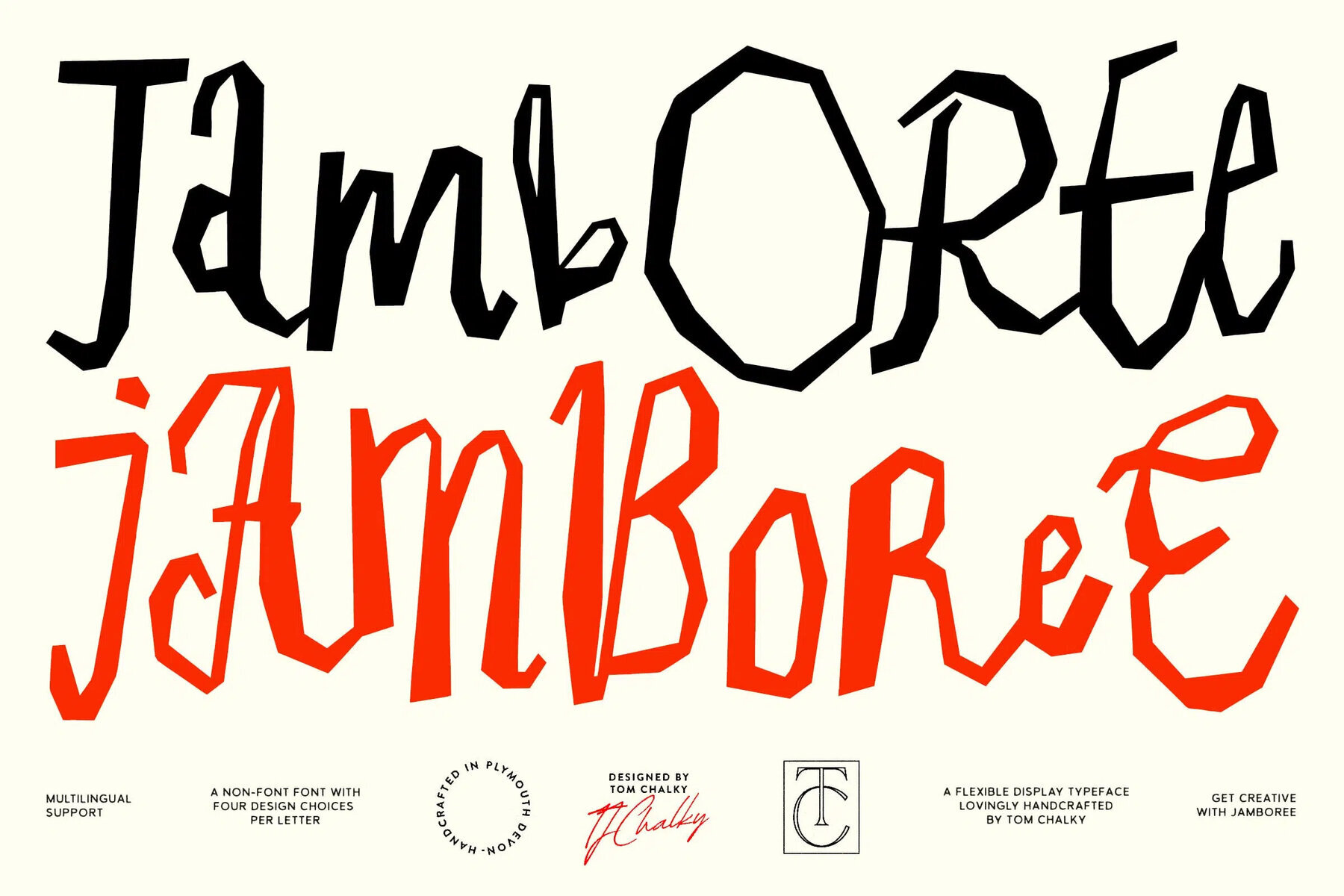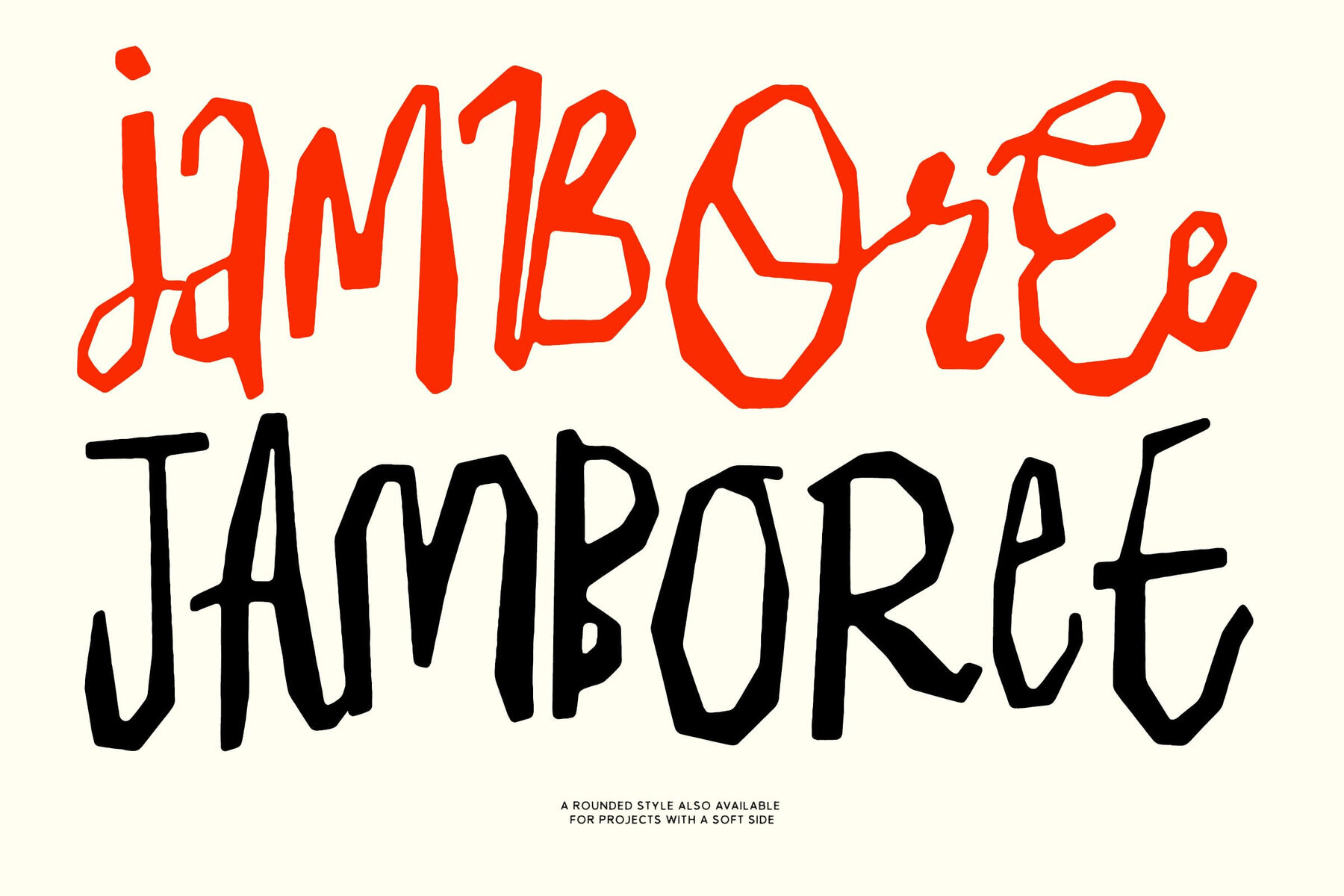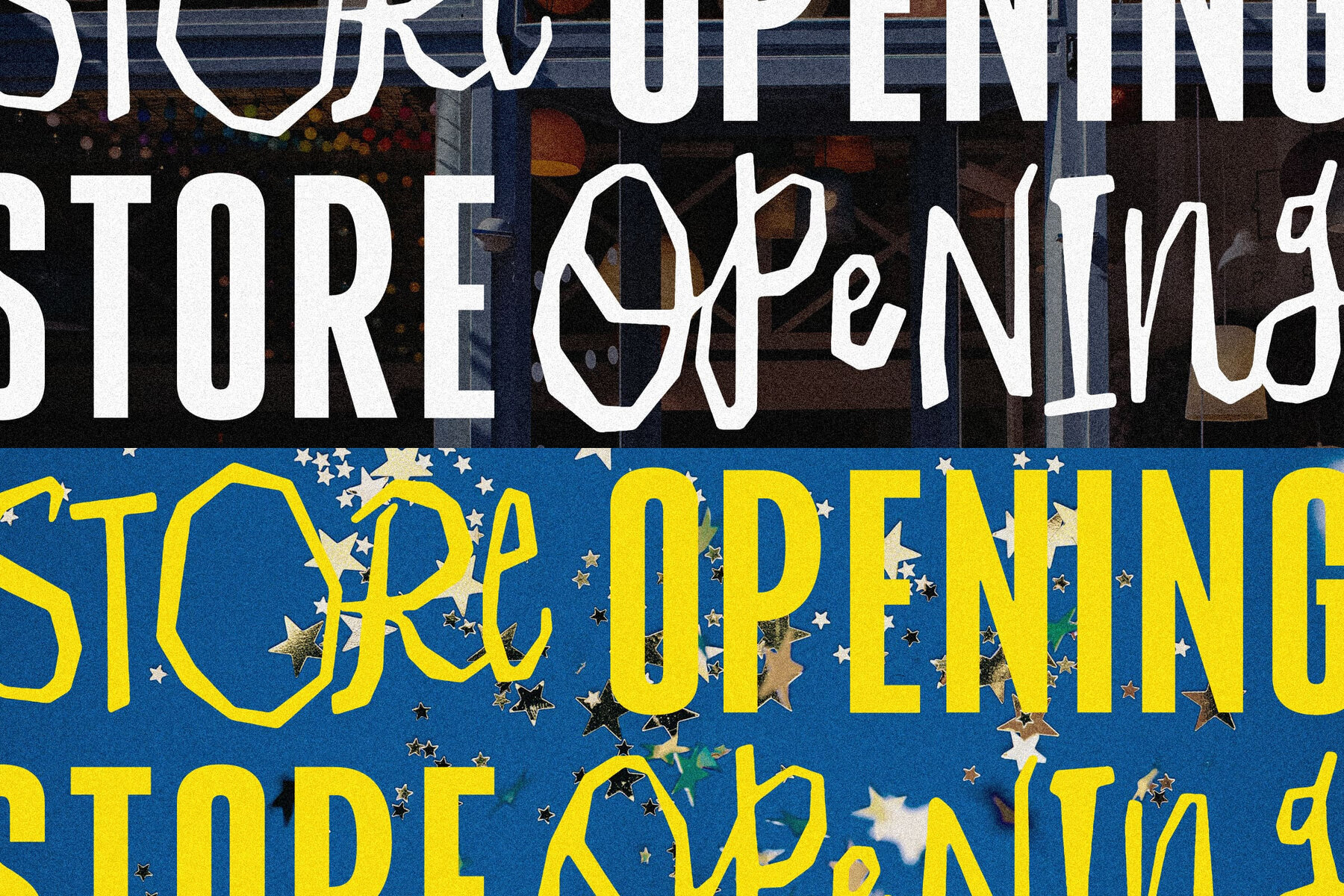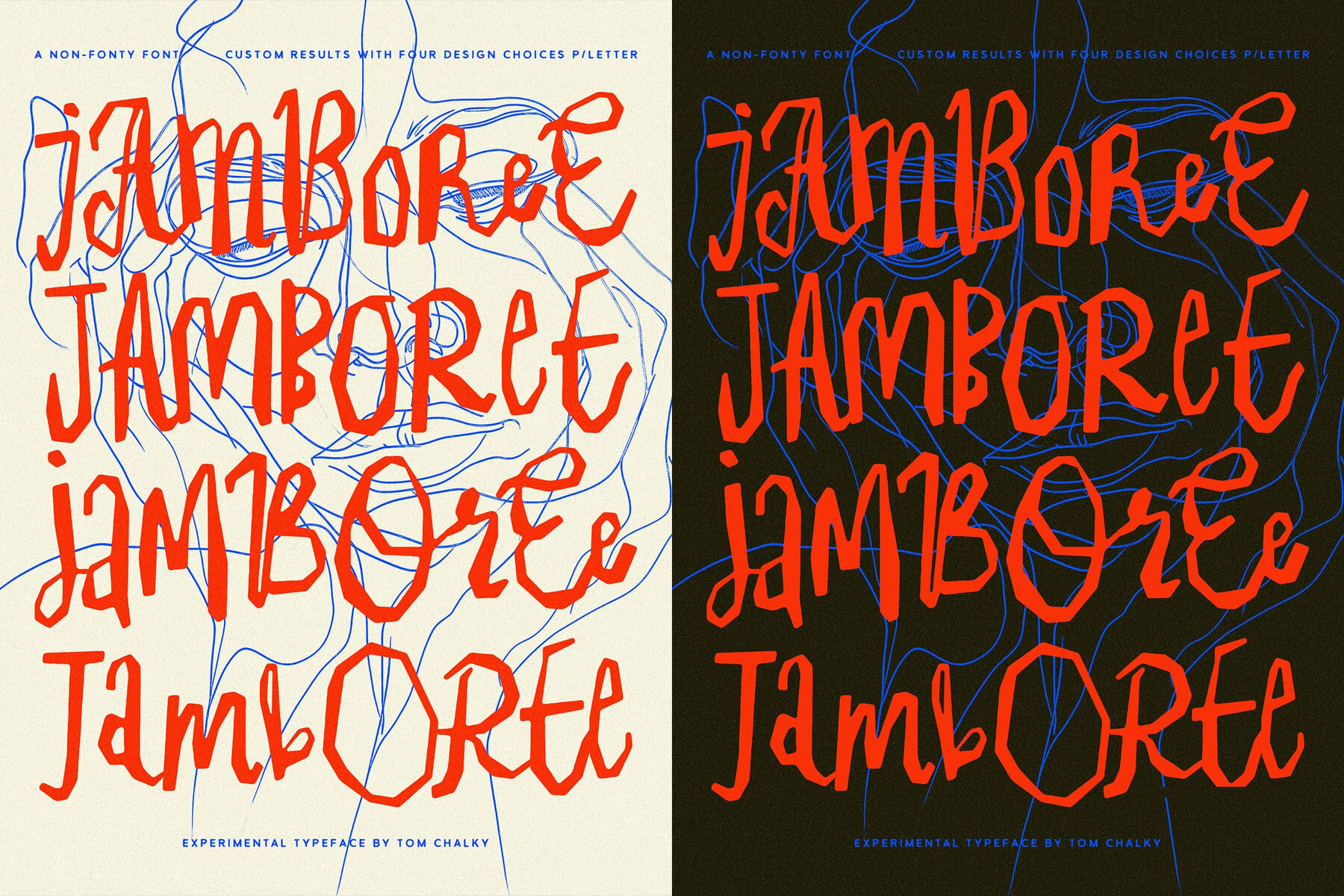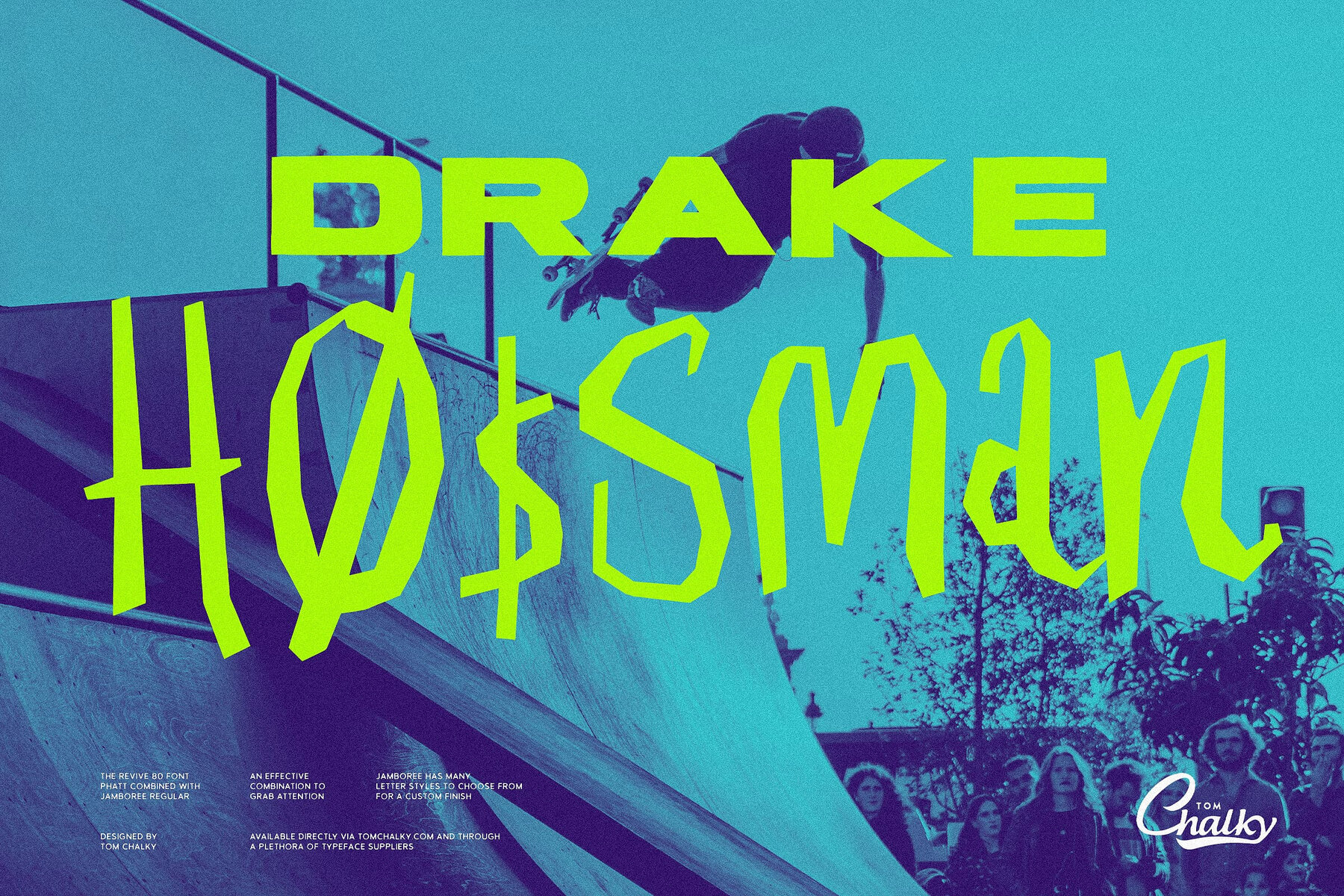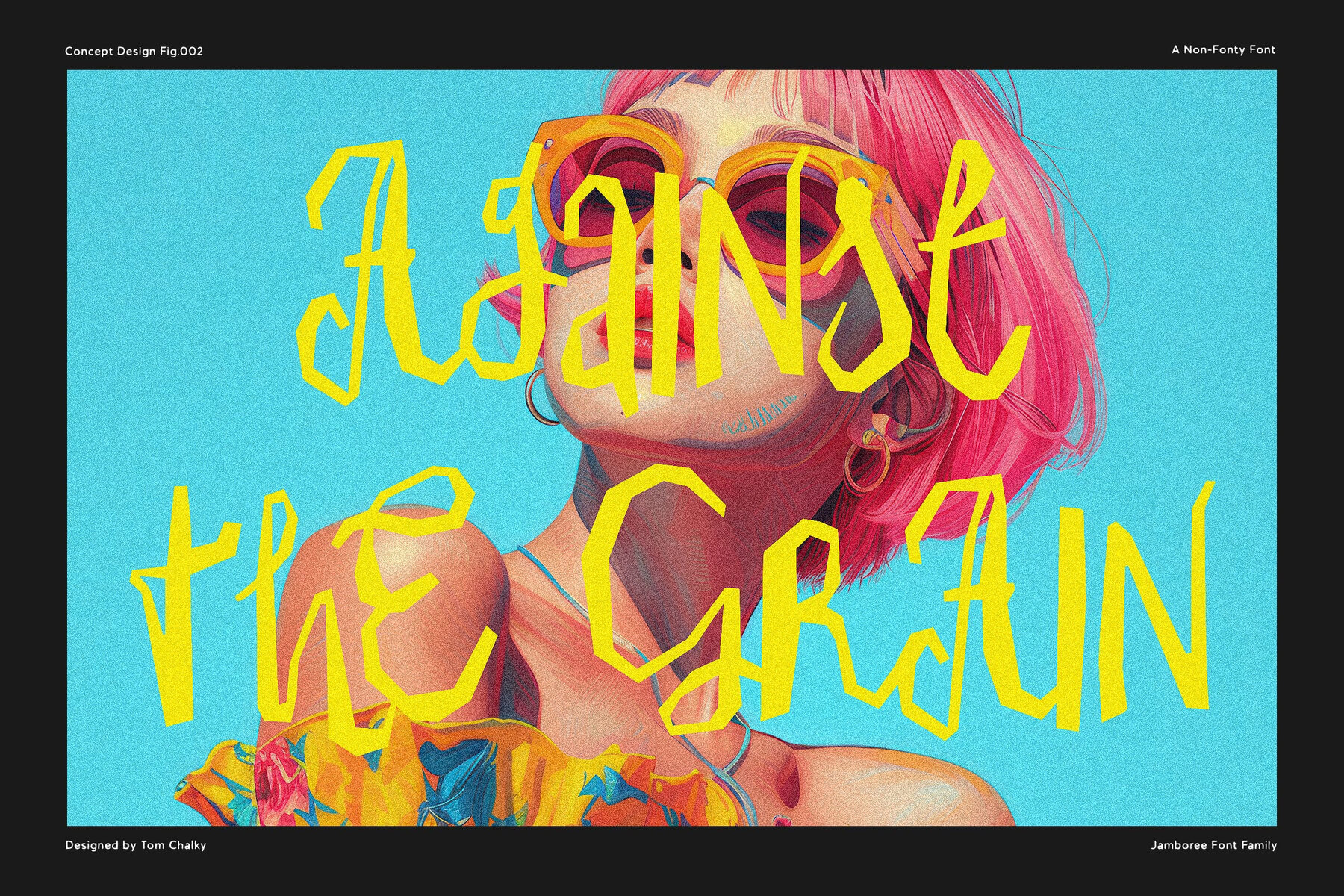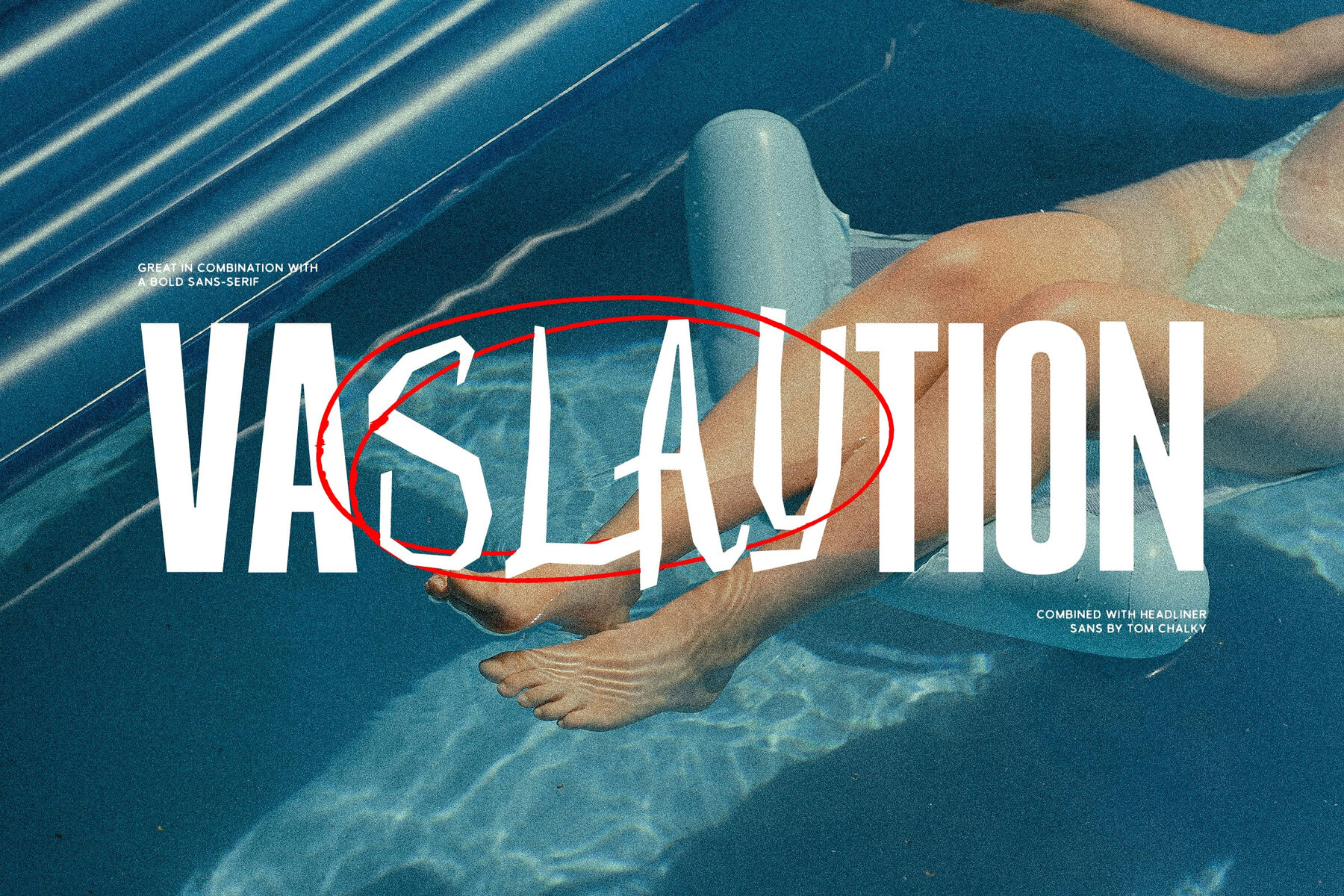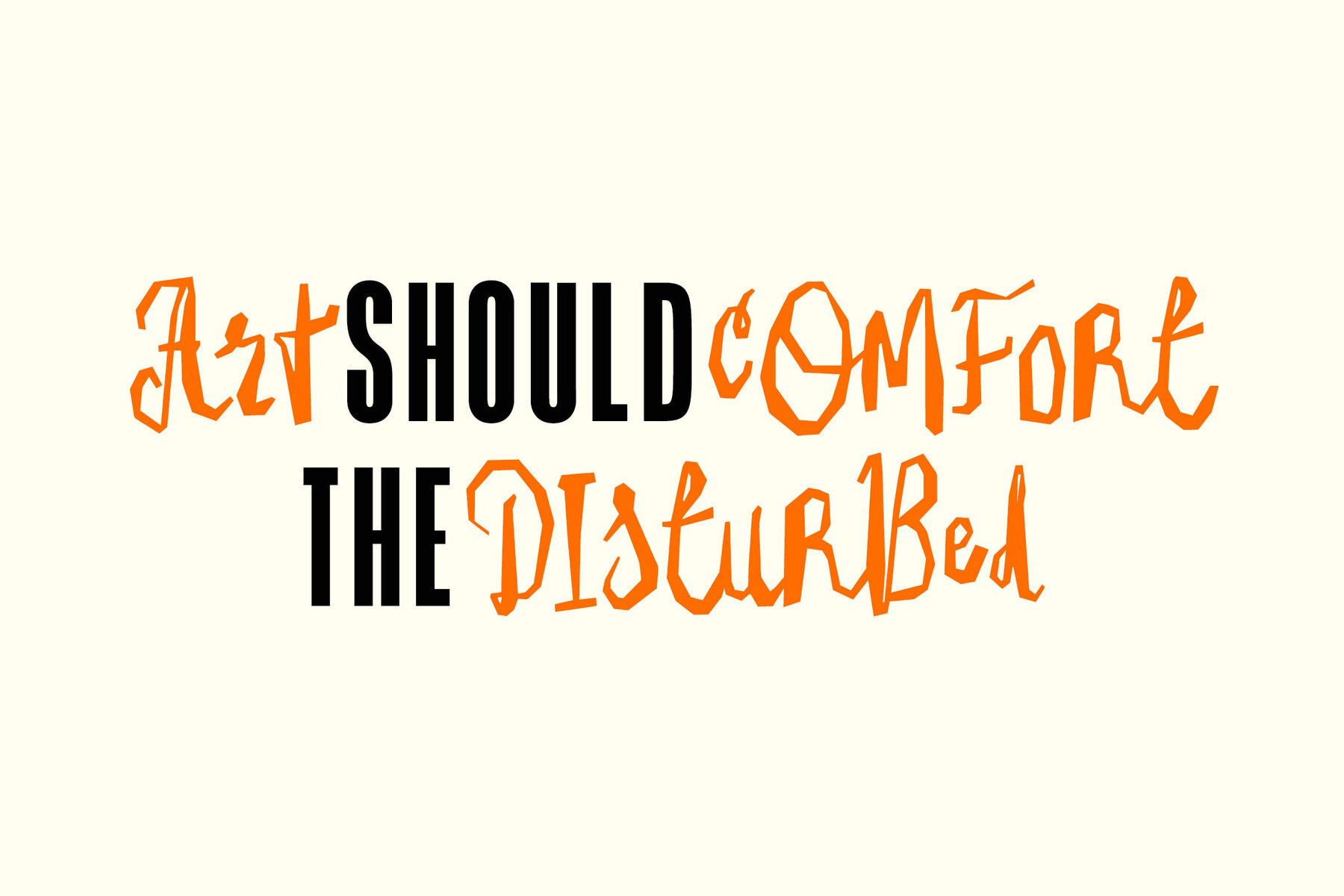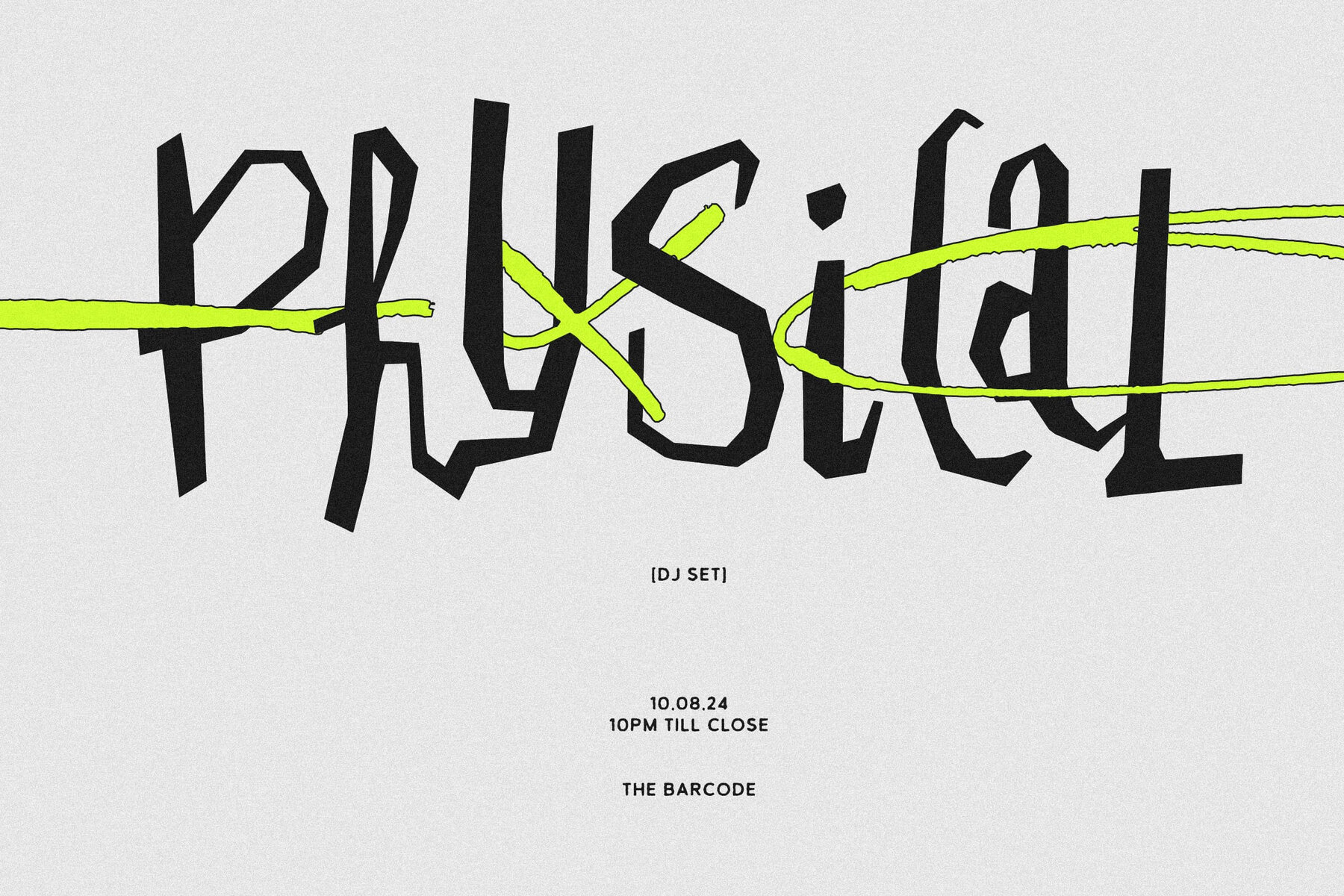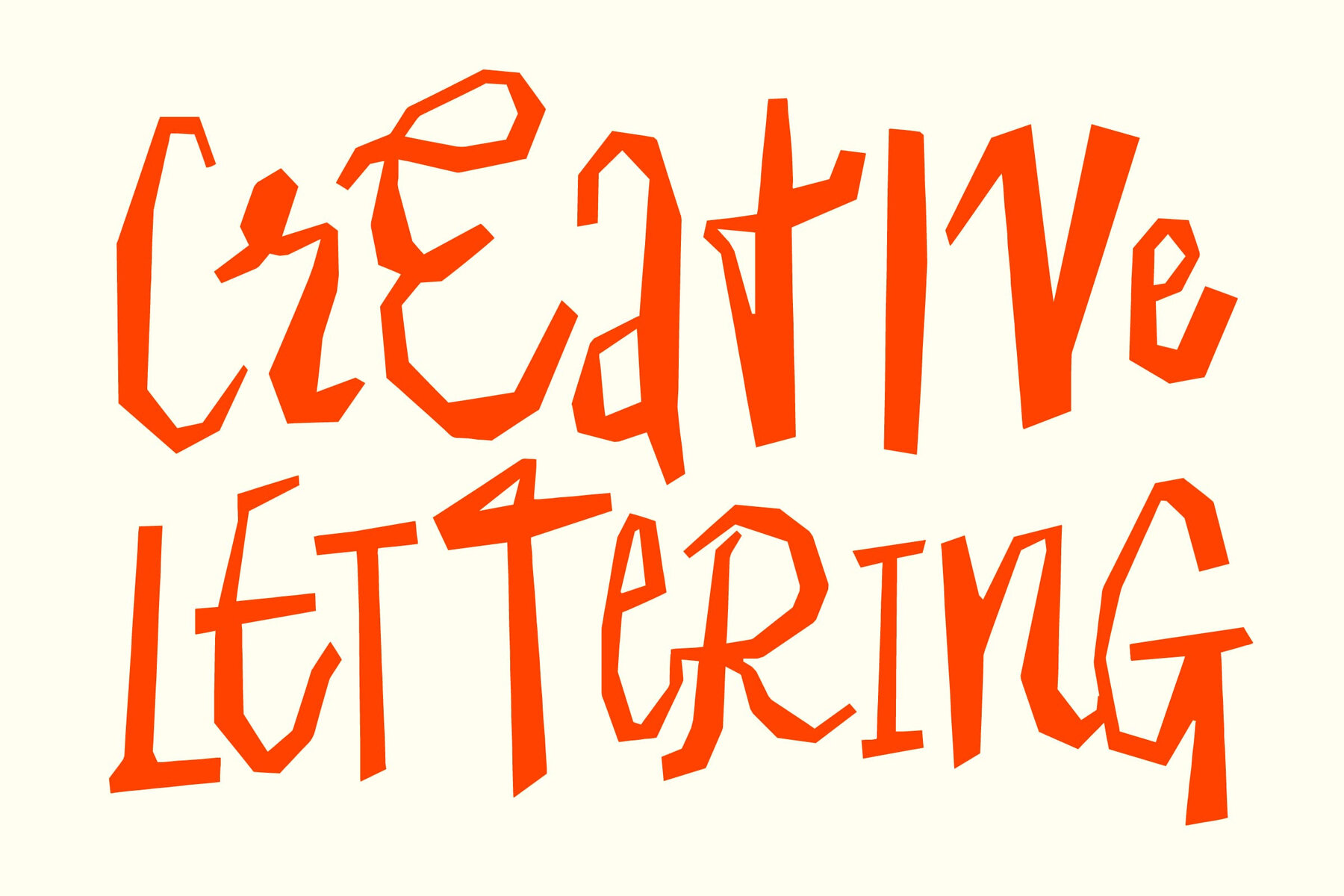
TC Jamboree Font
TC Jamboree Regular
TC Jamboree Soft Regular
TC Jamboree Alt
TC Jamboree Soft Alt
Introducing the TC Jamboree Font Family: An innovative typeface designed to make your projects stand out! This experimental font breaks the mold, offering a fun and stylish design that defies conventional typography. Key Features: Versatile Design Choices: With 4 unique design options for each letter, Jamboree provides a truly custom-lettered aesthetic, perfect for adding a personal touch to your work. Bold and Eye-Catching: Ideal for any project requiring big, creative lettering to grab attention. Whether you’re designing posters, headlines, logos, or social media graphics, Jamboree grabs eyeballs. Regular and Soft styles are included for those needing more control! Multilingual Support: All Latin 1 glyphs are covered, enabling the use within Basic Latin, Western European, Euro, and Pan African Latin.